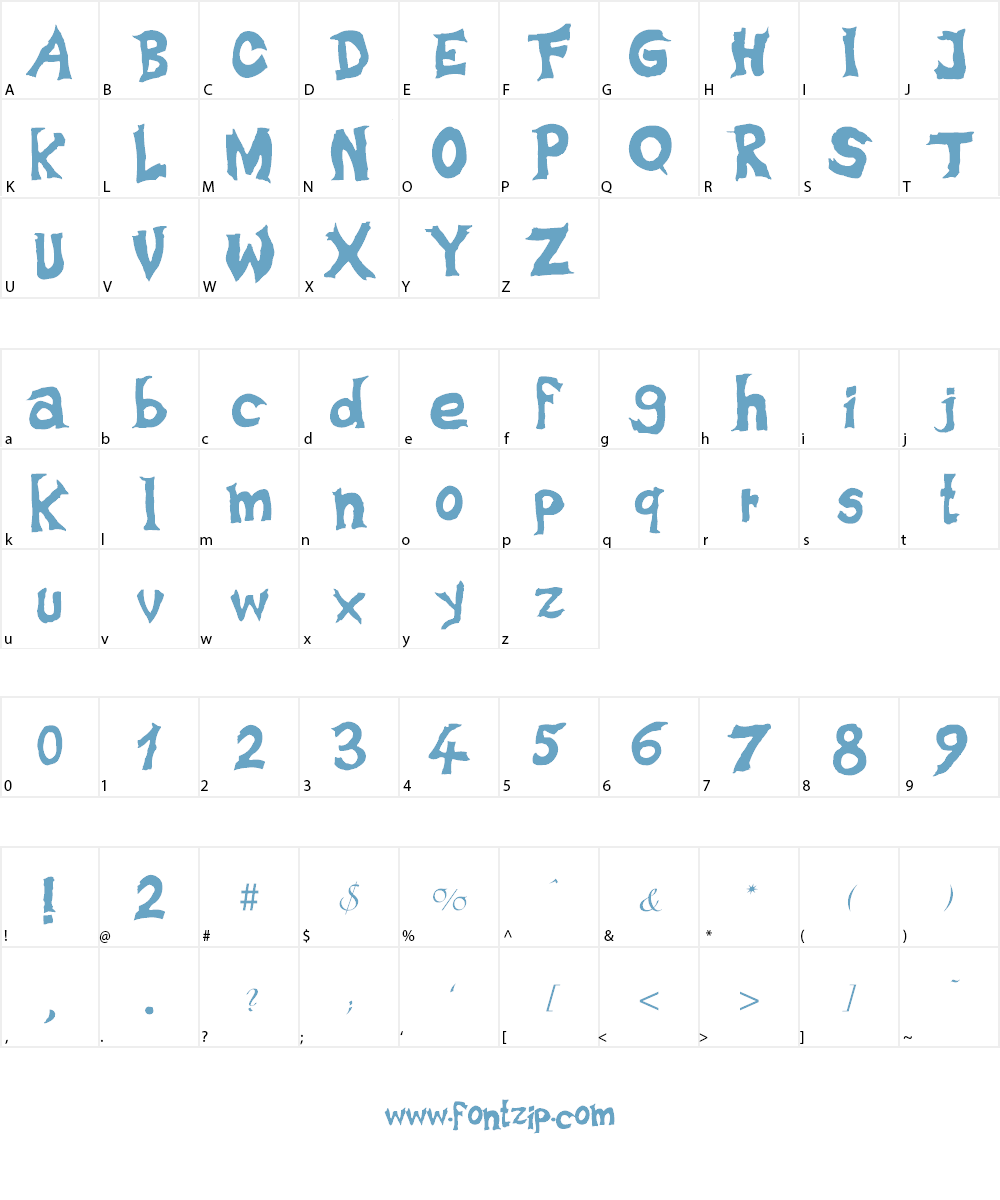
Adolar's Fart. Ziemlich kaputte, fette Schrift: punkig, freakig und beschissen - eben Adolar's Fart!
Very broken, bold font: punk, freaky and crappy - just Adolar's Fart!